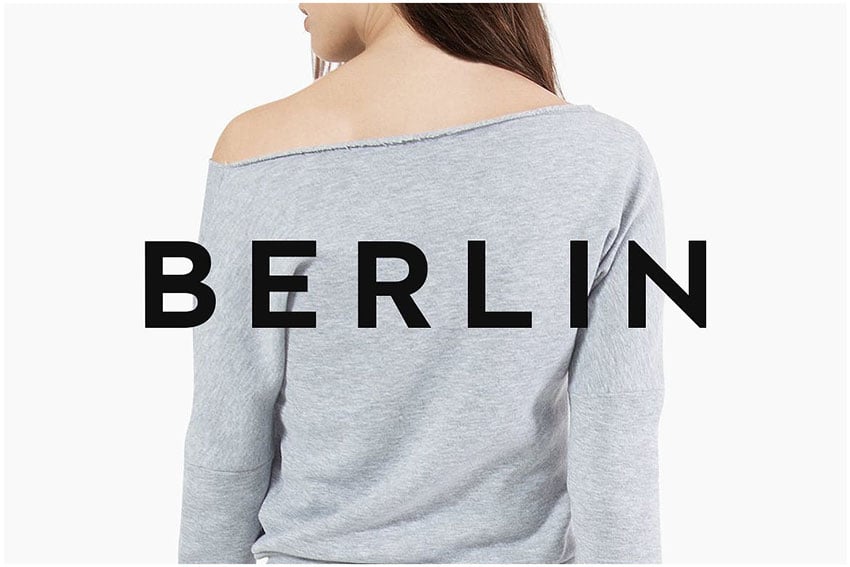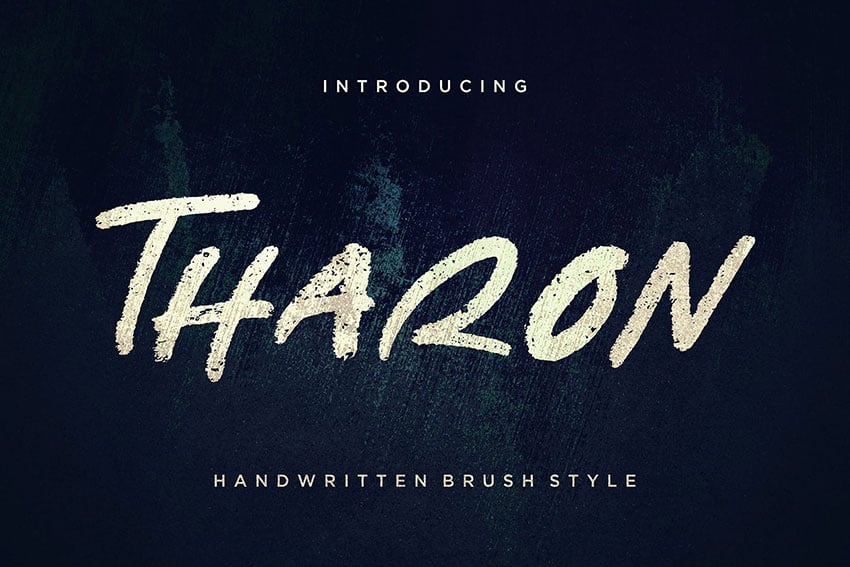
How to Combine Fonts, How Not To, and the Best Font Combinations
It is said that typography is the most important part of graphic design. And good font pairing is key because it dictates how professional, readable, and aesthetically pleasing your design is. If you don't make the right combination of fonts, your design will suffer.
Learn more about how to pair fonts and font combinations below:
1. Use a Single Font Family
If you are a beginner designer and you are still unsure about how to combine fonts, take the safe route. Superfamilies are font families that carry many weights and styles within the same typeface. By sticking to one superfamily, you are one step further into creating a minimalist layout.
You’ll know the fonts will work together because, anatomically, they are the same. This makes mixing fonts so much easier.
The advantage of using a superfamily is that the designer has taken care of the smaller details of the font by adapting it for larger and smaller scales. So if you need to use one style as a headline and one for the copy, you’ll be sure the characters will be readable at both sizes. Superfamilies have endless options that allow you to combine fonts safely.
These qualities are great if you are looking for website font combinations, or if you are designing a resume layout and need to try different fonts.
2. Keep It Minimal
When it comes to mixing fonts, it's always a good thing to set some boundaries. Try not to spend too much time combining fonts of multiple styles. Try to stick to two or three fonts maximum—it’ll save you time, and readers won’t skip reading the content.
Fonts have personalities and may compete for attention on a page. If you choose a superfamily and stick to just a few options, that also counts! Try serif and sans serif or script and sans serif font combinations. That’ll give you the right amount of variety to keep your design exciting.
Below, I paired Tharon Brush Style with Berlin. Tharon is an energetic, handwritten font that is perfect for a logo or for the headline on an editorial piece. The font is bold and strong, so it needs something modern and basic to balance it.
That’s where Berlin comes in—this sans serif font is geometric and structured, and stylistically it is the opposite of the handwritten font. Berlin is minimalist and clean, perfect to pair with a font that evokes movement. These are two fonts that go together seamlessly.
3. Choose Contrasting Fonts
Deciding on a combination of fonts for your layout is a serious business. You want to use contrasting typefaces that complement each other. Anatomically speaking, if there isn’t much difference between the fonts, it can come across as a mistake.
It is common and some might even say a rule of thumb to use a sans serif and a serif font because these are different enough to put together on a layout. Some designers might even venture to use two fonts of the same classification. For instance, if you choose to use two sans serif fonts, make sure they evoke similar moods but are completely different from each other.
Consider how you are using the fonts and how you can go about it. You can achieve contrast by mixing fonts of different weights, kerning, and styles. If you are really inclined to use two completely varying fonts, you can go classic with a sans serif and a serif, or depending on the theme you could mix fonts of script and serif types.
Below we have Ropstone, a vintage decorative font inspired by classic posters. There are a couple of ways to go with this: we can combine the font with a script or with a sans serif. A great script font to pair with Ropstone is Ink Blank. The calligraphic feel contrasts nicely with the decorative intricacies of Ropstone.
If you’d like to keep it simpler when contrasting fonts, choose a sans serif font like Noir Pro. A sans serif font will support the decorative font without getting in the way too much. The decorative font can be used in special instances only, like headlines.
Meanwhile, a sans serif font can be used for body text to keep it legible and let the decorative font shine. If you are working with a vintage print or editorial piece, combining fonts like this is a good idea.
4. Convey the Intended Mood (Text and Content)
Fonts are like humans: each one has its own personality and character. If you are designing with a specific mood in mind, pay close attention to the type of font you are using. Knowing how to pair fonts becomes a key skill.
For instance, a kid’s birthday party invitation can be forgiving when using decorative fonts. You wouldn’t want to use the same font in a formal document like a resume or a high-end restaurant. Even knowing how to use contrasting typefaces can make a difference depending on the context.